Choosing the right Ramadan poster fonts is essential for creating designs that feel spiritual, respectful, and visually engaging. In Ramadan 2026, poster designs are expected to balance tradition and modern aesthetics, especially for educational materials, mosque announcements, community events, and digital campaigns.
Fonts play a crucial role in shaping how Ramadan messages are perceived. From elegant Arabic-inspired scripts to clean modern sans-serif fonts, each typography style communicates a different mood. This article explores the best font styles for Ramadan 2026 posters and compares how each type works in different design contexts.
Why Font Choice Matters for Ramadan Posters
Typography Sets the Spiritual Tone
The right font helps convey:
- Calmness and reverence
- Warmth and togetherness
- Clarity and respect
Poor font choices can make posters feel rushed or inappropriate for the sacred atmosphere of Ramadan.
Posters Must Be Clear and Accessible
Ramadan posters are displayed in various places, such as schools, mosques, social media, and public spaces, so fonts must remain readable at different sizes and formats.
Common Font Styles Used for Ramadan Poster Design
Different font styles bring different emotional qualities. Understanding these differences helps designers make better decisions.
1. Arabic-Inspired Fonts for Ramadan Posters
Yasmen is a modern ligature serif font with beautiful characters, perfect for display titles, branding, social media, and more. It adds elegance and readability to any creative project
Characteristics
- Calligraphic or ornamental details
- Curved, flowing letterforms
- Strong cultural and spiritual associations
These fonts instantly communicate Islamic identity and tradition.
Best Use Cases
Arabic-inspired fonts work best for:
- Poster titles and headlines
- Mosque or community announcements
- Decorative accents
However, they should be paired carefully with simpler fonts for readability.
2. Serif Fonts for Elegant and Formal Ramadan Designs
Horison is an elegant decorative serif font with beautifully balanced characters, perfect for jewelry branding, fashion, magazines, and classy design projects.
Characteristics
- Small strokes at the ends of letters
- Classic and structured appearance
- Strong readability in print
Serif fonts create a calm and respectful tone suitable for formal settings.
When to Use Serif Fonts
Serif Ramadan poster fonts are ideal for:
- Educational posters
- Long informational text
- Formal Ramadan programs
They help convey authority and clarity.
3. Sans-Serif Fonts for Modern Ramadan Posters
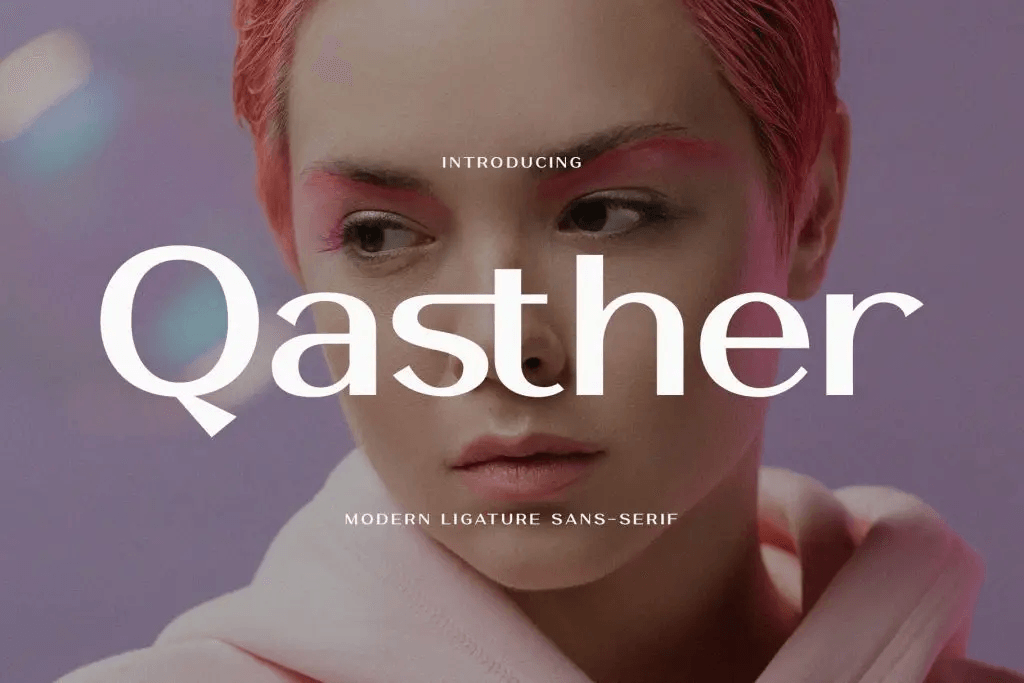
Qasther is a beautiful sans-serif font that combines sophistication with modern clarity. Ideal for tech branding, editorial design, and social media, it adds elegance and professionalism to any project
Characteristics
- Clean and minimal letterforms
- Easy to read on digital screens
- Contemporary visual feel
Sans-serif fonts help Ramadan posters feel fresh and accessible.
Best Applications
Sans-serif fonts work well for:
- Social media Ramadan posters
- Youth-focused events
- Digital displays and screens
They pair nicely with Islamic patterns and soft color palettes.
4. Script Fonts for Warm and Emotional Ramadan Messages
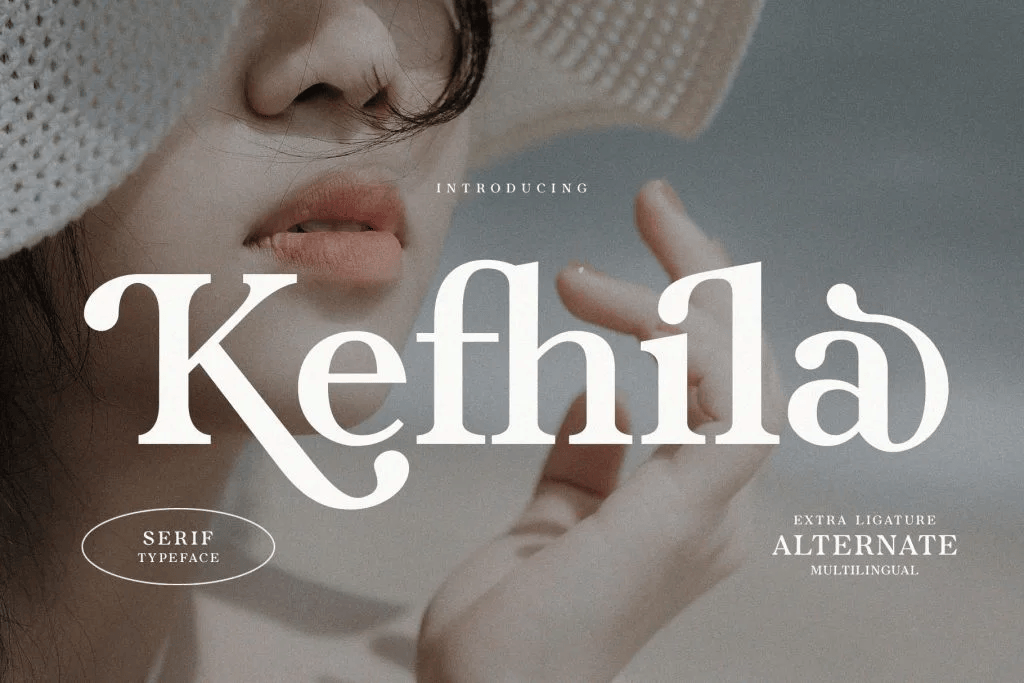
Kefhila is a feminine indie serif font with unique organic letterforms, blending curves and angles for a sophisticated yet whimsical design. Perfect for branding, editorial, and beauty-focused projects.
Characteristics
- Handwritten or flowing style
- Soft and expressive appearance
- Decorative rather than functional
Script fonts evoke warmth and sincerity.
How to Use Script Fonts Wisely
Script fonts should be used sparingly for:
- Short phrases or greetings
- Emphasis on key messages
- Decorative highlights
They are not recommended for long paragraphs.
Font Trends for Ramadan 2026 Poster Design
In 2026, Ramadan poster typography trends focus on:
- Minimalist layouts
- Soft serif and modern sans-serif combinations
- Subtle Arabic calligraphy accents
- Balanced use of whitespace
These trends support calm, elegant, and inclusive visual communication.
Final Thoughts on Best Fonts for Ramadan 2026 Posters
Choosing the best Ramadan poster fonts for 2026 requires understanding both tradition and modern design needs. Arabic-inspired, serif, sans-serif, and script fonts each bring unique emotional qualities to Ramadan posters.